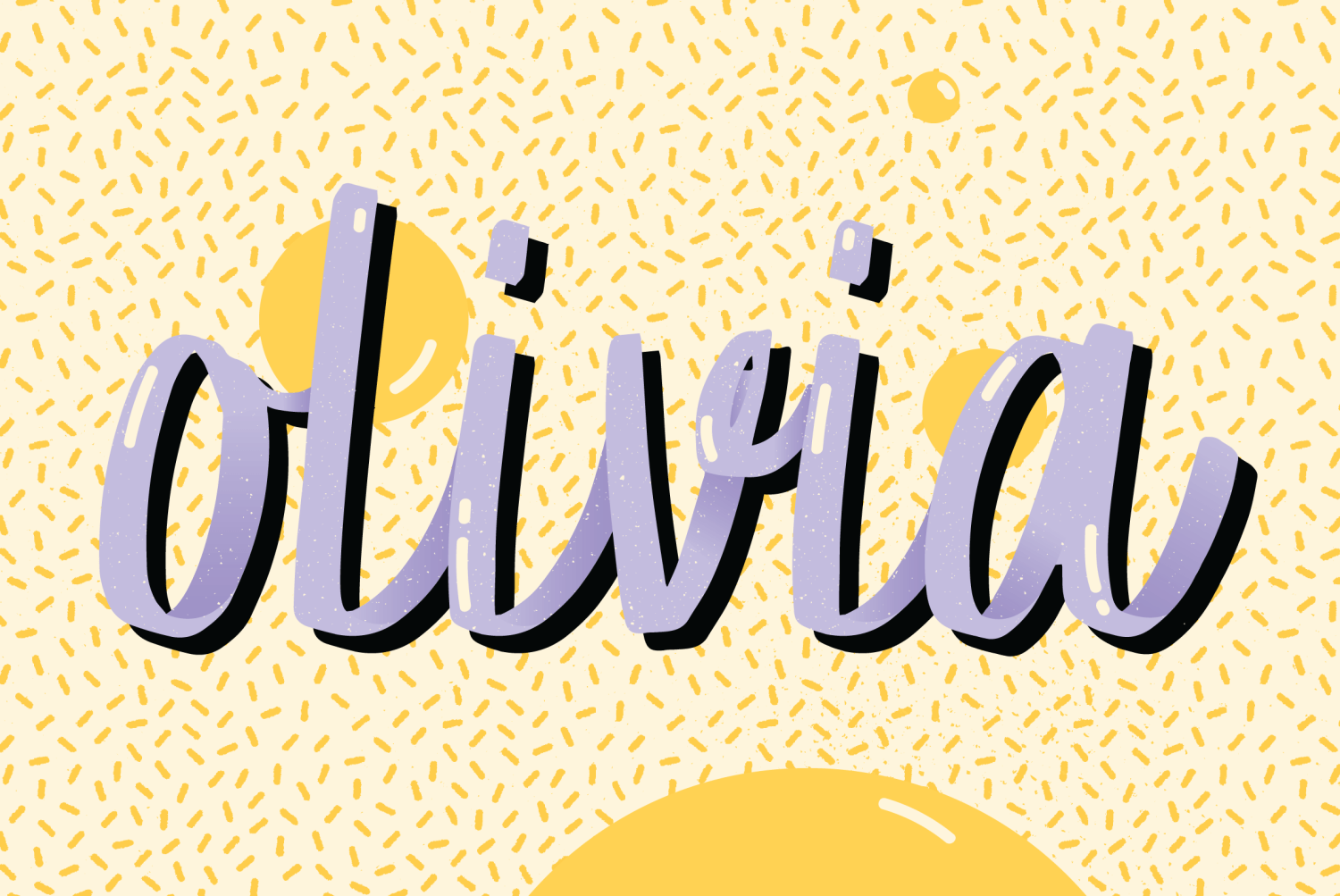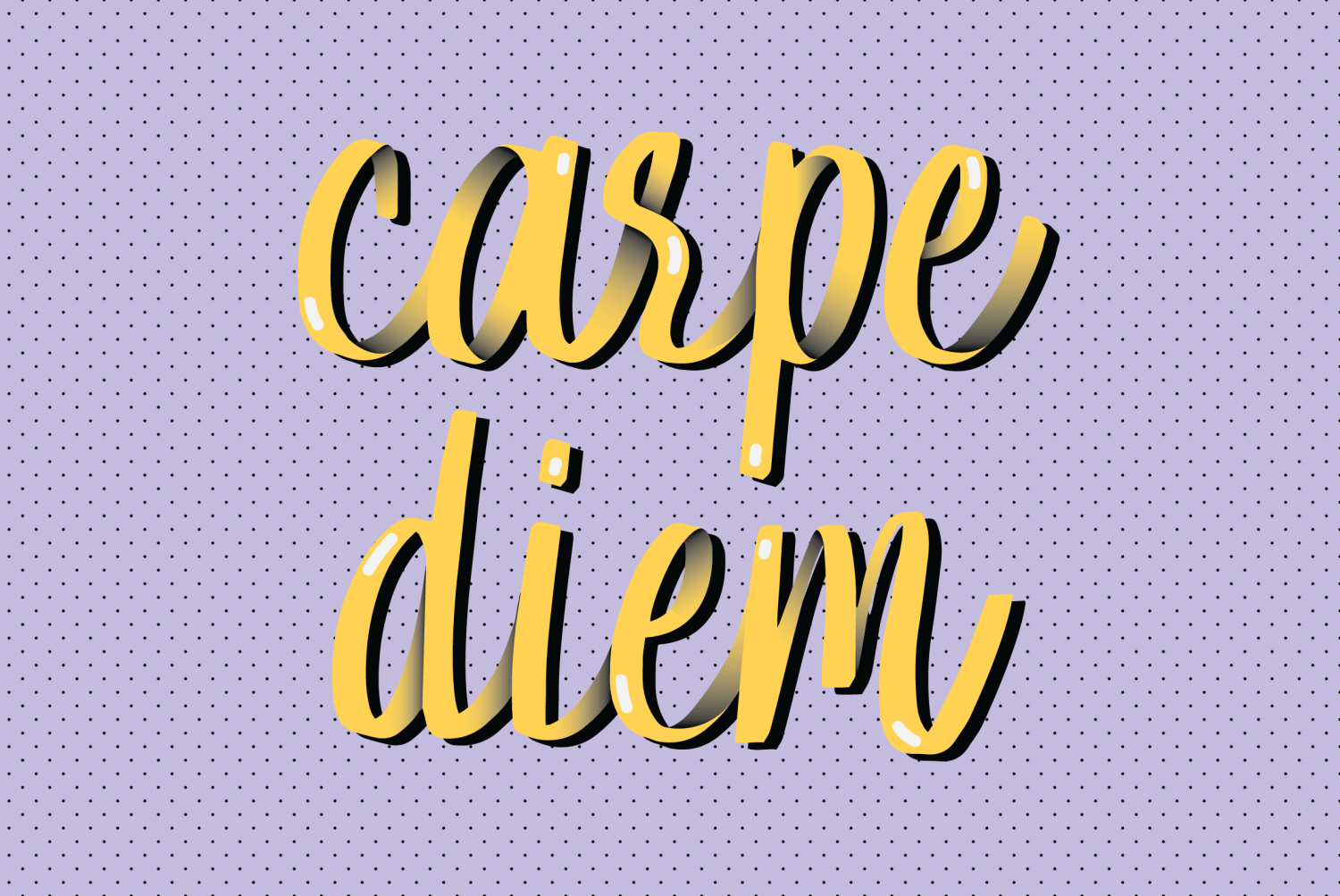
About YWFT Olivia
There\’s nothing more celebrated than youth. We strive to look young for as long as humanly possible, and many of us recall parts of our childhood as some of the best moments of our lives. YouWorkForThem has captured the essence of youthfulness with YWFT…